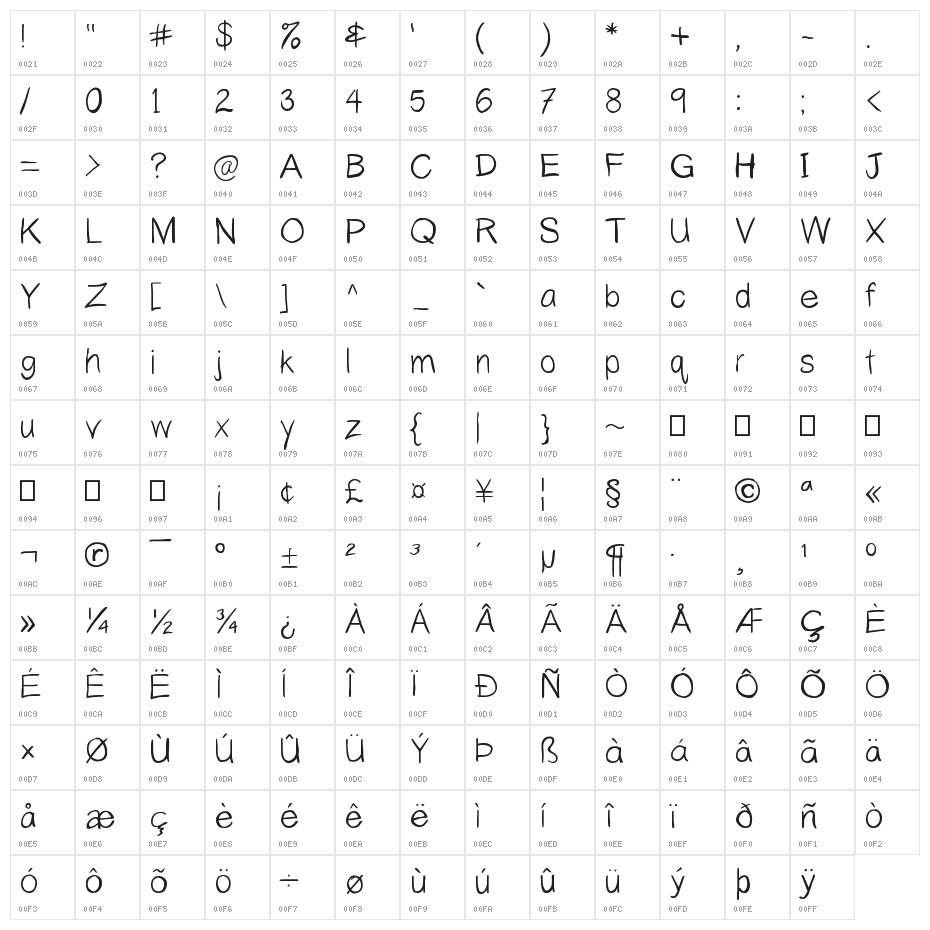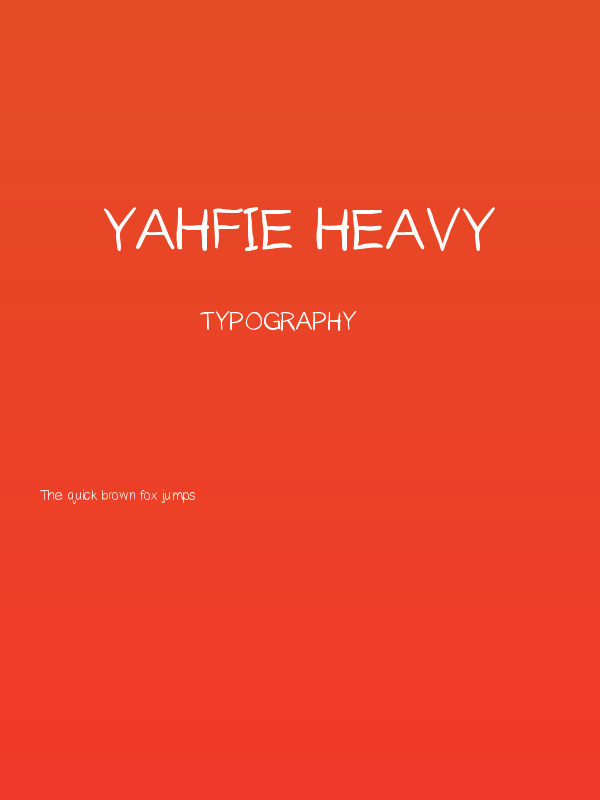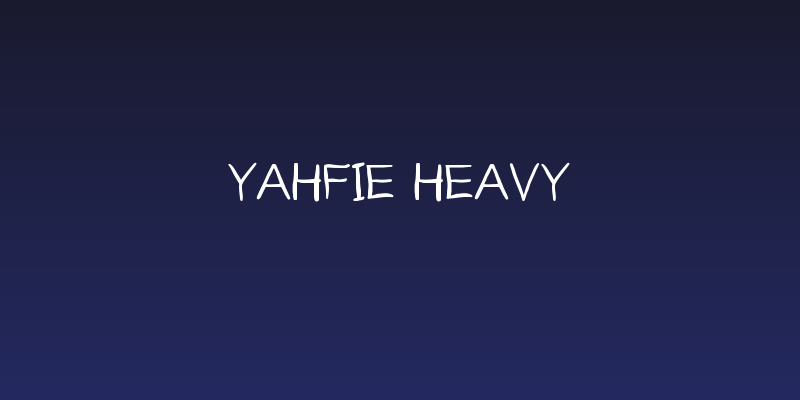
Yahfie Heavy Font
Yahfie Heavy Description
This font features a playful and casual handwritten style, characterized by its smooth, rounded edges and slightly irregular letterforms. The uppercase and lowercase letters maintain a consistent flow, giving the text a friendly and approachable appearance. The numerals and special characters complement the overall style, ensuring readability while maintaining a whimsical charm. This font's design is perfect for projects that require a personal touch or a relaxed, informal vibe.
Overall StyleCasual, Playful
Use CaseHeadlines, Informal text, Creative projects
Proposed ProjectsIdeal for greeting cards, children's books, personal blogs, and informal branding.